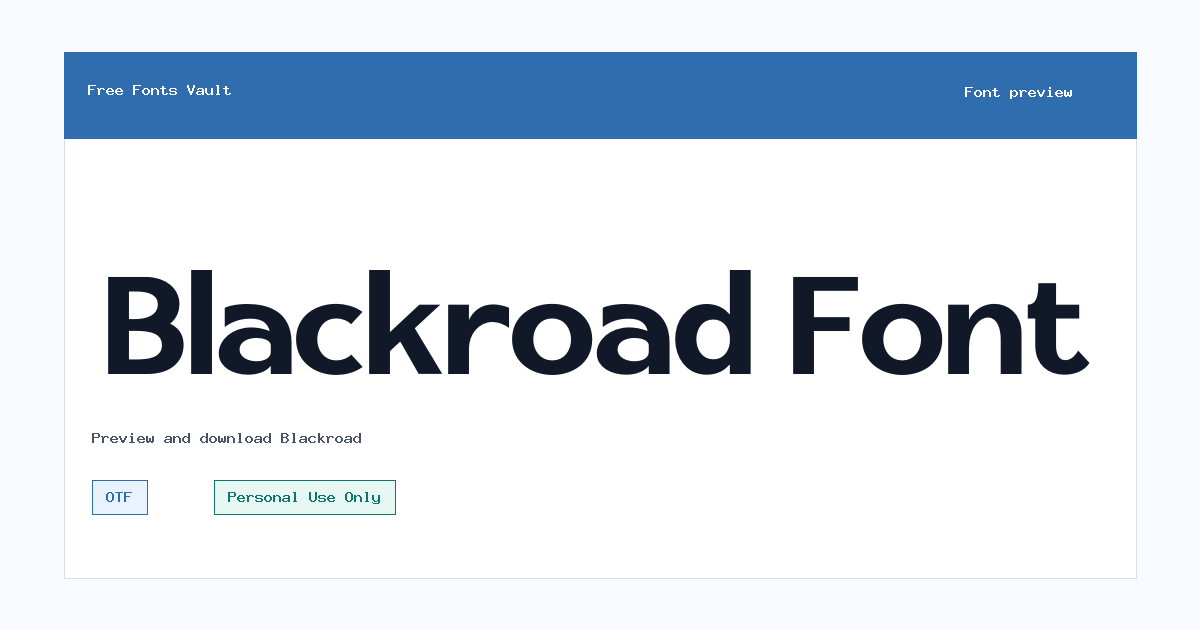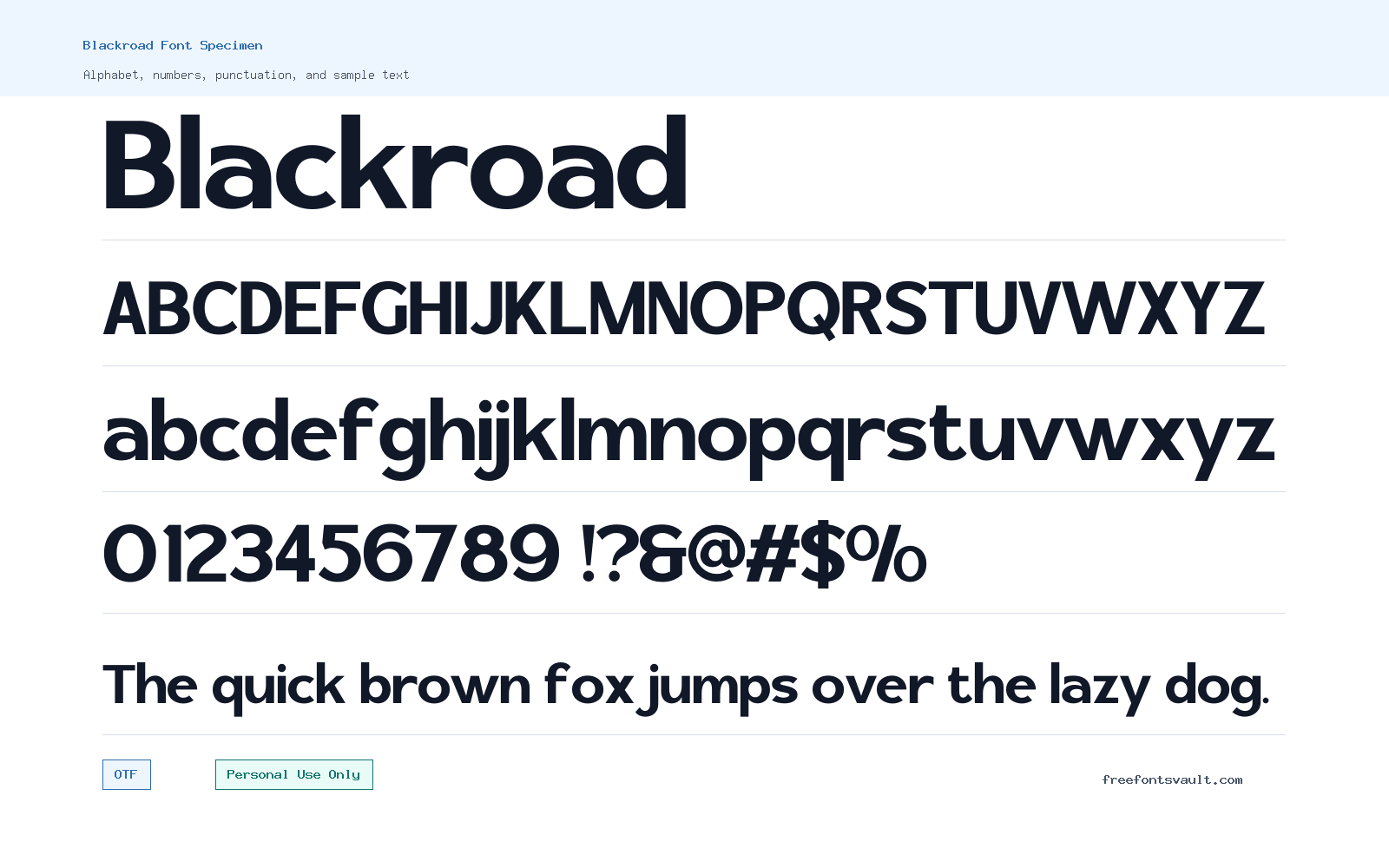
Blackroad
Blackroad font.
Blackroad is a bold display font with a heavy regular style, made for short text that needs strong visual weight. The download file is an OTF font, and the listed license is Personal Use Only, so it is best treated as a testing and personal-project font unless you have a separate commercial license.
About Blackroad
Blackroad works like a strong headline face rather than a quiet reading font. The available file is the regular OTF style with a very heavy weight, so it is most useful for words that need to stand out quickly: poster titles, labels, social graphics, thumbnails, mockups, and personal branding experiments. A third-party listing describes Blackroad as part of a font duo, with a clean sans serif paired with a vintage script, but the file shown for this page is the regular OTF style only. For that reason, test the actual download in the preview instead of assuming every style from the wider family is included.
Use Blackroad at larger sizes and keep the text short. Heavy display fonts can lose detail in long paragraphs, small captions, or crowded layouts. Try your real wording in the preview box before downloading: names, product-style titles, event lines, initials, and all-caps phrases will show you how the spacing and weight behave. If the letters feel too dense, add tracking, reduce the number of words, or pair it with a simple neutral sans serif for body text. Avoid pairing it with another loud display font unless the design is meant to feel intentionally busy.
- Heavy regular OTF font file suited to bold display text, titles, and short visual statements.
- Personal posters, social media graphics, preview mockups, labels, stickers, and title treatments.
- Short headings where a strong black-weight look is more important than long-form readability.
Is Blackroad good for body text?
It is better for display use. The heavy style is more suitable for short headings, posters, labels, and graphic text than for paragraphs.